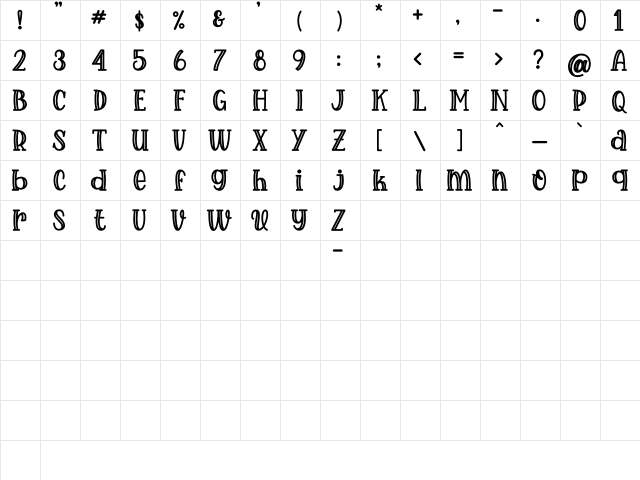
Choco Cookies Regular
Design Context for Choco Cookies Typeface
Choco Cookies is a composed and adaptable typeface that performs quietly and consistently across a wide range of design contexts.